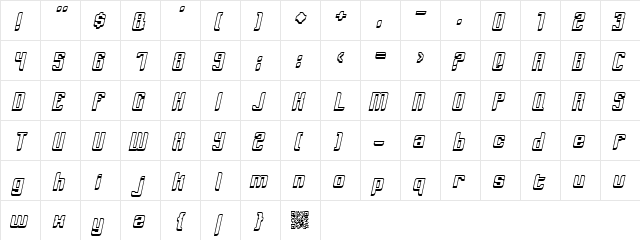
Dymeda Shadow Italic
Design Context for Dymeda Typeface
Dymeda brings ornamental detail and strong personality to headlines and identities, where visual impact matters more than quiet functionality. Its italic angle brings a sense of urgency and motion to the letterforms.
Font Pairing: Pair with a clean neutral sans-serif for body copy to let Dymeda's character lead without overwhelming the composition.
Pro Tip: Use Dymeda exclusively at display sizes — it was designed to be seen, not read at length. Let a neutral companion handle body copy.